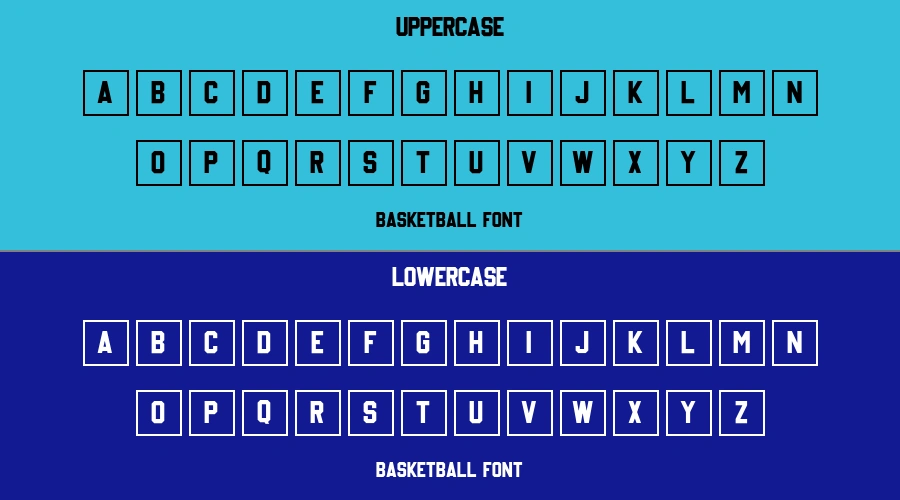
About Basketball Font
Basketball Font stands out for its distinctive combination of rounded corners and clarity. Ideal for legal documents, it provides the versatility and creative impact that professional projects demand. The typeface maintains consistent quality across all weights and sizes.
Key features include refined precise joints and practical arbitrary fractions, enhancing typographic expression. In featured quotes applications, Basketball Font demonstrates exceptional color application. The counter size and artistic merit contribute to its distinctive character and professional appeal.